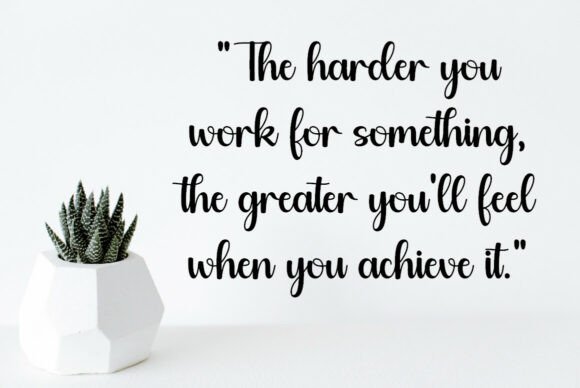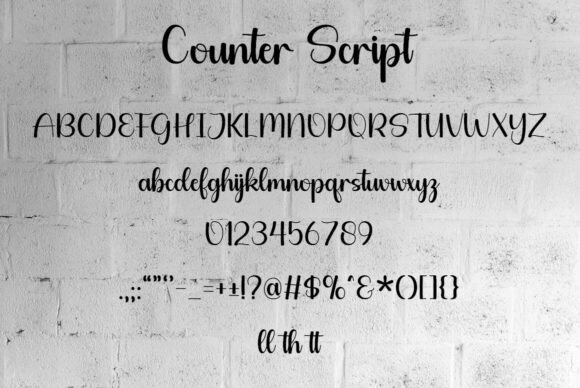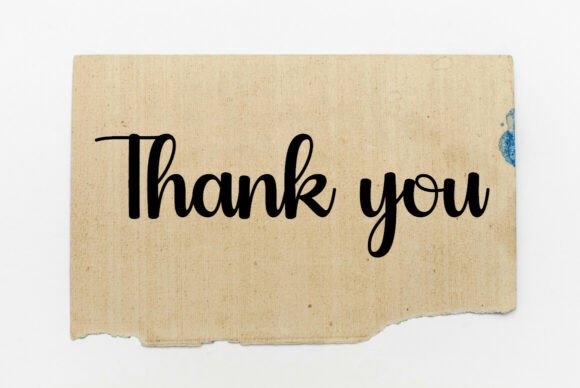
Introduction to Counter Script Font
Have you ever stumbled upon a font that makes your creative project stand out from the crowd? For me, that moment came when I discovered the elegant Counter Script Font. Its delicate curves and refined lines transported me to a world of sophistication and luxury, making me envision stunning wedding invitations, beautiful stationery, and captivating social media posts.
As a designer, I can attest that finding the perfect font can be a game-changer. With the Counter Script Font, you’ll have the power to elevate your designs and make them truly unforgettable. Whether you’re working on a high-quality project or just need a reliable design resource, this font is sure to deliver.
Key Features of Counter Script Font
- Unique, elegant script font perfect for creative projects requiring a touch of sophistication
- Designed for use in a variety of contexts, from wedding invitations to branding materials and editorial content
Honest Review: Counter Script Font
- ✨ Elegant and sophisticated design that’s perfect for creative projects.
- ✨ A wide range of styles and weights to choose from, making it versatile for various applications.
- ⚠️ Limited in its support for languages other than English, which might be a concern for international projects.
Overall, I’m quite impressed with the Counter Script Font. It’s a high-quality design resource that can elevate any creative project. While it has some limitations, I believe it’s a great choice for designers looking for a sophisticated and elegant font.
Counter Script Font
Introduction to Counter Script Font
The Counter Script Font is a high-quality design resource perfect for creative projects. This font features a unique, elegant script style that adds a touch of sophistication to any design.
Tips for Getting the Most Out of Counter Script Font
To maximize the effectiveness of Counter Script Font, use it in titles, headings, and body text to create a consistent design language.
Common Use Cases for Counter Script Font
The Counter Script Font is ideal for:
- Brand logos and marketing materials
- Photography captions and quotes